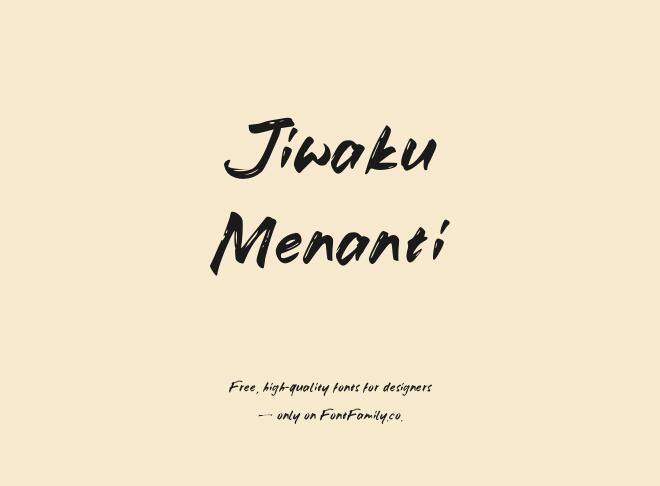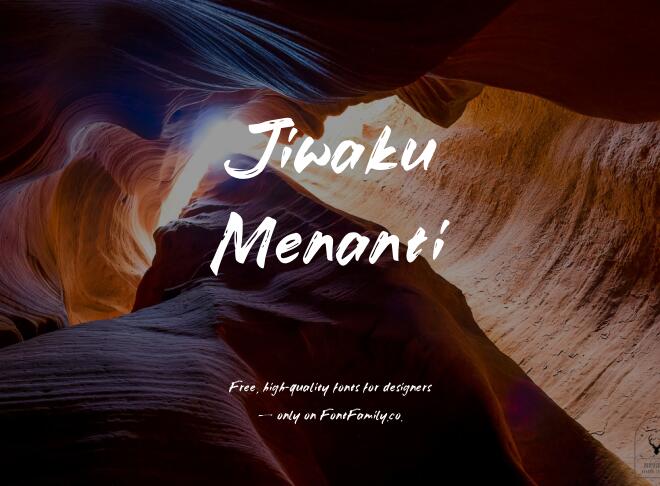
Jiwaku Menanti Font
Jiwaku Menanti Font is a distinctive handwritten script font that radiates charm and elegance. The font is characterized by its bold strokes and decorative swirls, making it a perfect choice for invitations, stationery, and logo design. With its unique handwritten style, Jiwaku Menanti Font stands out from other script fonts, offering a personal and intimate touch to your designs. Despite its decorative nature, it maintains a high level of readability, making it versatile for various design needs. Its dynamic character set is attractive and memorable, and it's a great choice for those wanting to add a touch of personality and uniqueness to their work. Download Jiwaku Menanti Font for free and let your design speak volumes of creativity and elegance.